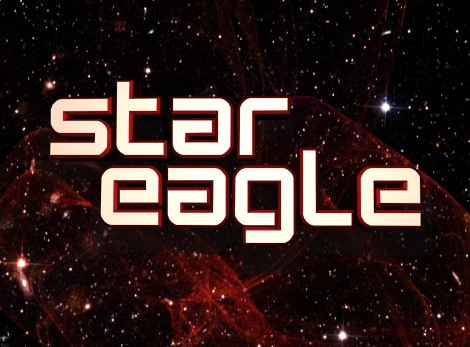
Star Eagle 2 Font
Star Eagle 2 Font, This bundle features strong, confident and powerful typefaces designed to work great with sports logos, club branding, apparel applications, labels and more.